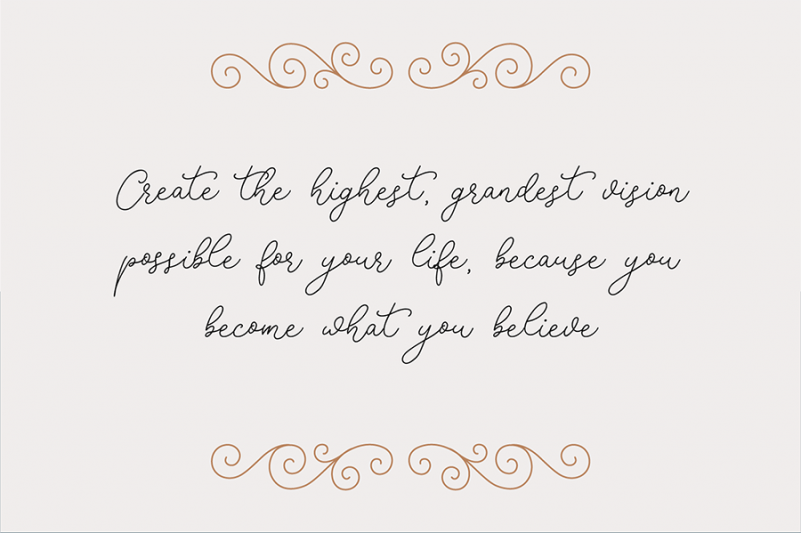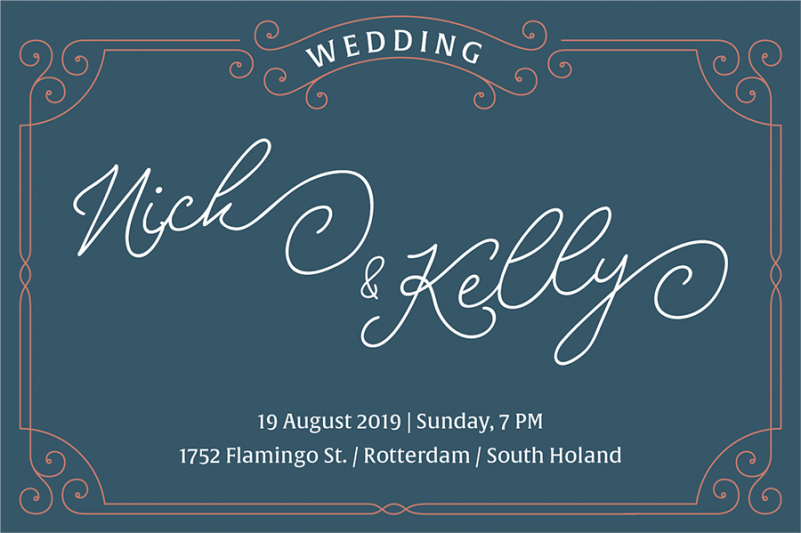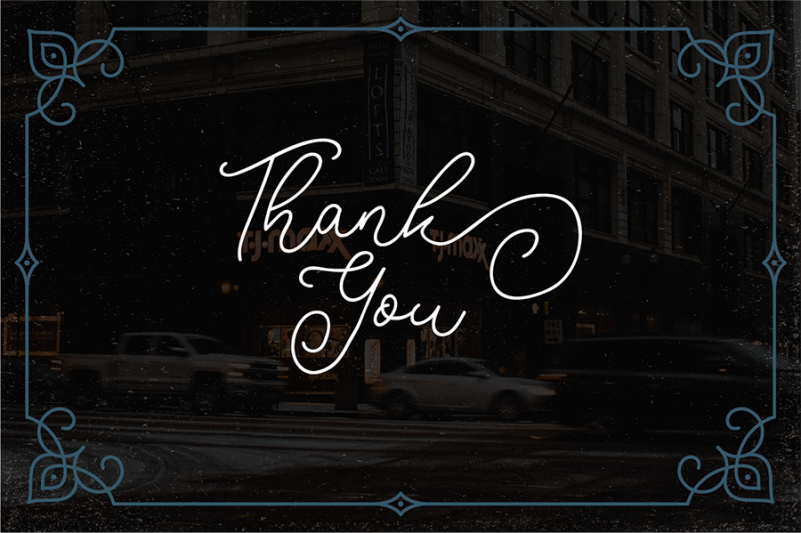
Rotters Signature Font is handcrafted signature font. A modern handwritten script, wich simulates natural handwriting. Rotters Font is perfect for branding, product packaging, wedding invitations, cards and so on. If you want to add a certain charm, appeal and allure in your projects, Rotters Signature is just what you need.